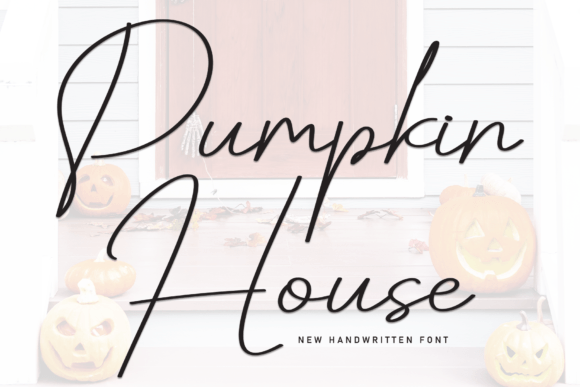
Indulge in the whimsical charm of the Pumpkin House Font, an exquisite handwritten script that captivates with its elegant curves and timeless beauty. This masterpiece, crafted by the talented andikastudio, is a modern-day classic that seamlessly blends tradition with innovation.
Unleash your creativity and let your projects take center stage with the Pumpkin House script. Its versatility knows no bounds, making it ideal for a myriad of applications—from heartfelt wedding invitations and charming greeting cards to eye-catching social media posts and enchanting branding materials.
Picture this: your wedding invitations adorned with the Pumpkin House script's delicate, dancing letters, conveying your love story with an elegance that speaks volumes. Or, envision your brand's identity elevated to new heights, exuding a timeless charm that resonates with your audience and sets you apart from the ordinary.
With the Pumpkin House Font as your creative companion, the possibilities are endless. Experience the joy of crafting designs that resonate with both sophistication and playfulness. Dive into a world of endless possibilities, where your imagination knows no limits. Embrace the Pumpkin House Font today and watch your projects blossom into masterpieces.